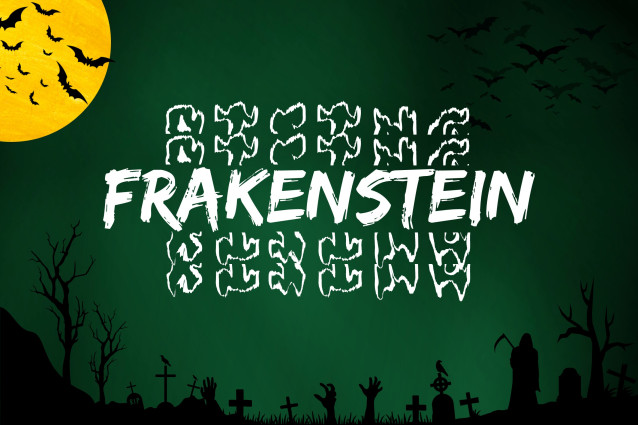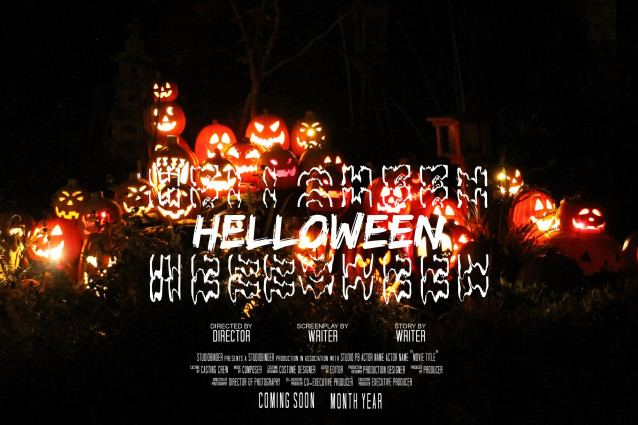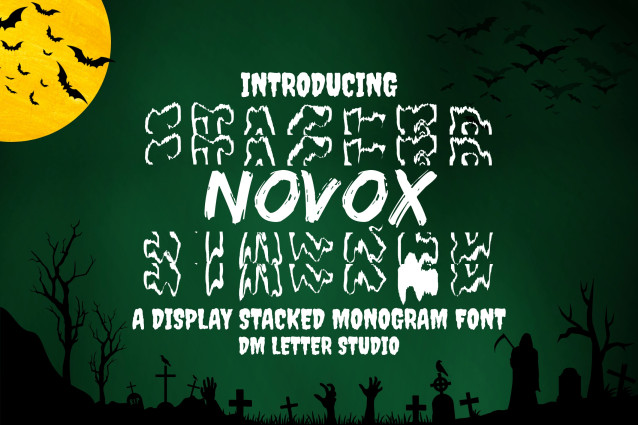
Novox Stacked Monogram Font
Novox Stacked Monogram is a bold and stylized display font designed with a vertical stack orientation and gritty drip aesthetics. Each letter stands strong with a condensed, monogram-friendly silhouette while still embracing the melted, irregular character of the original Novox style. It’s ideal for striking logos, clothing tags, extreme sports gear, band merch, and more.